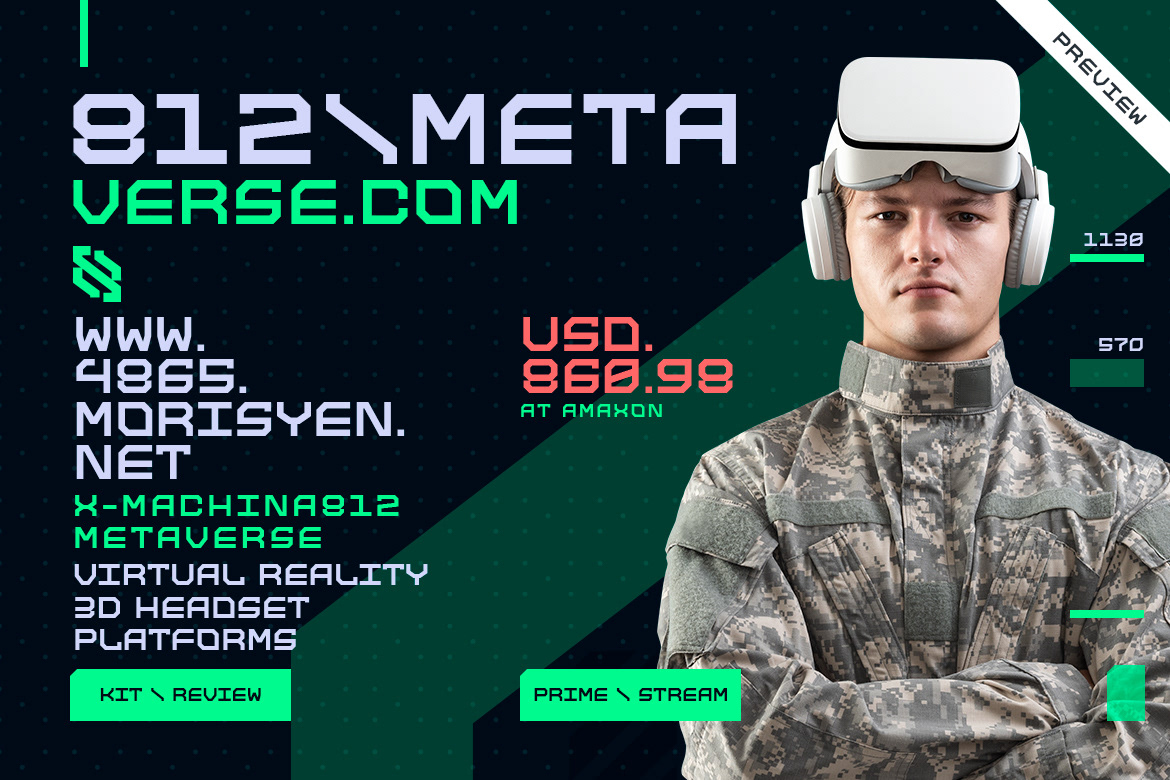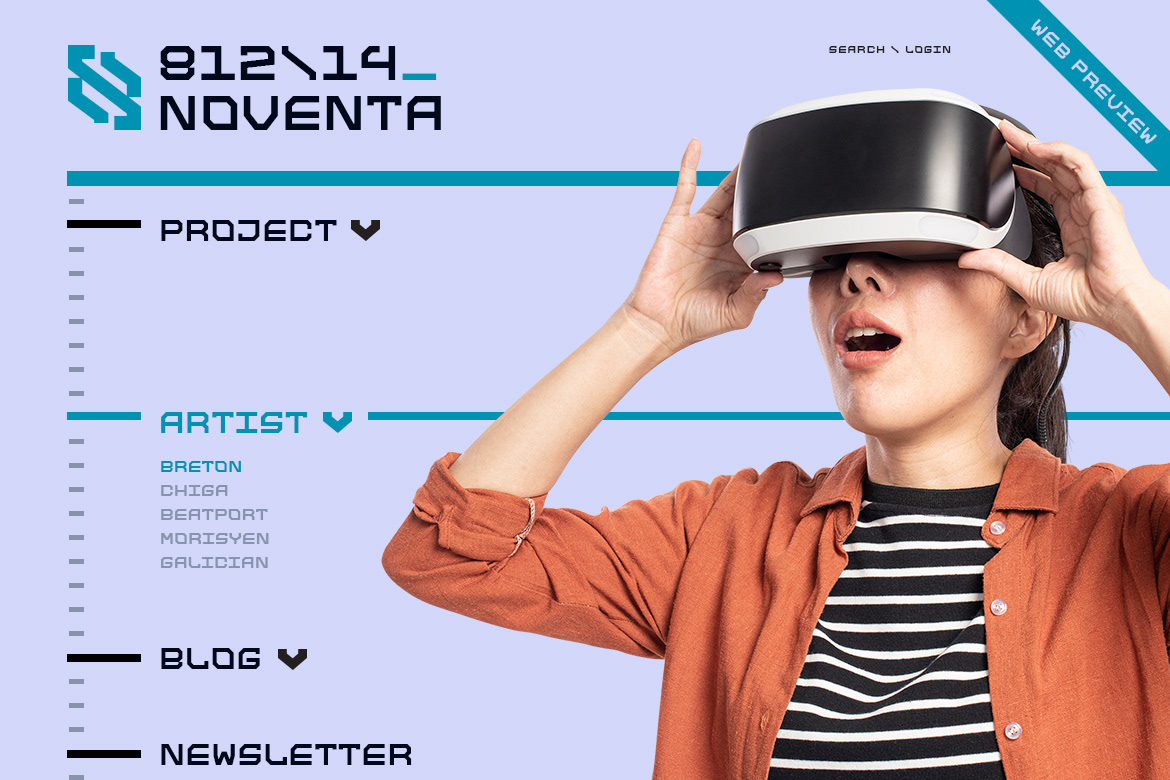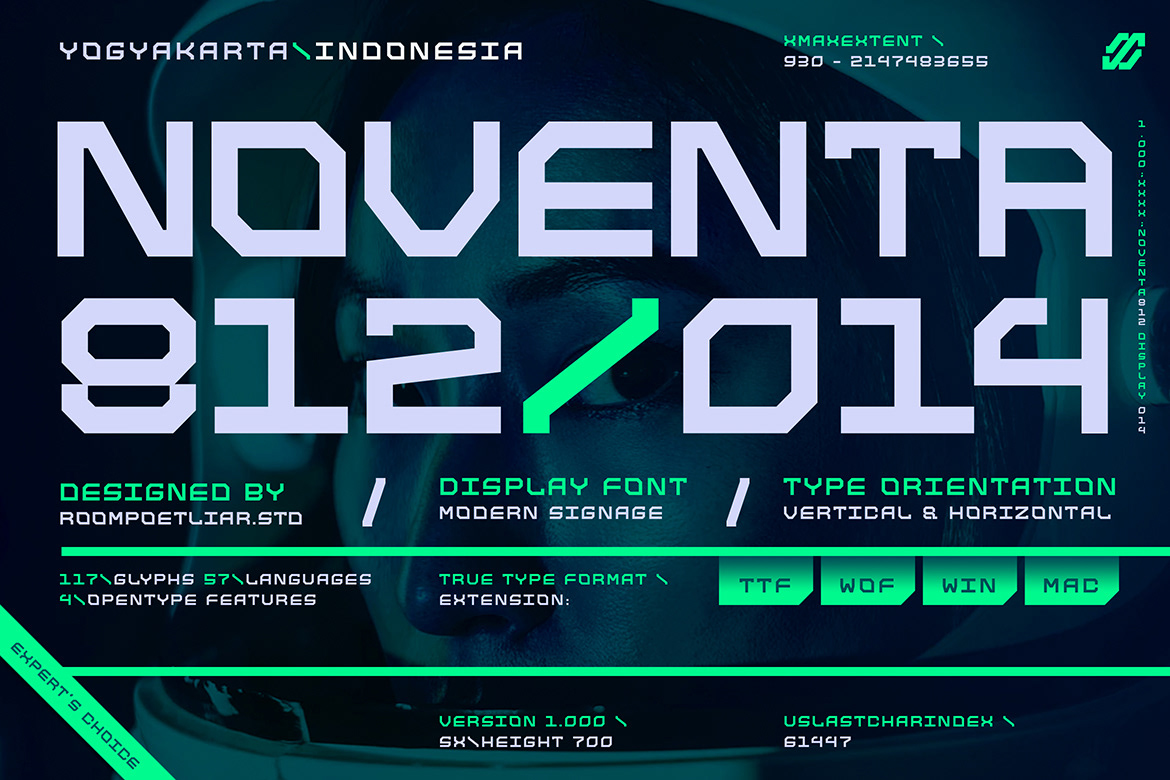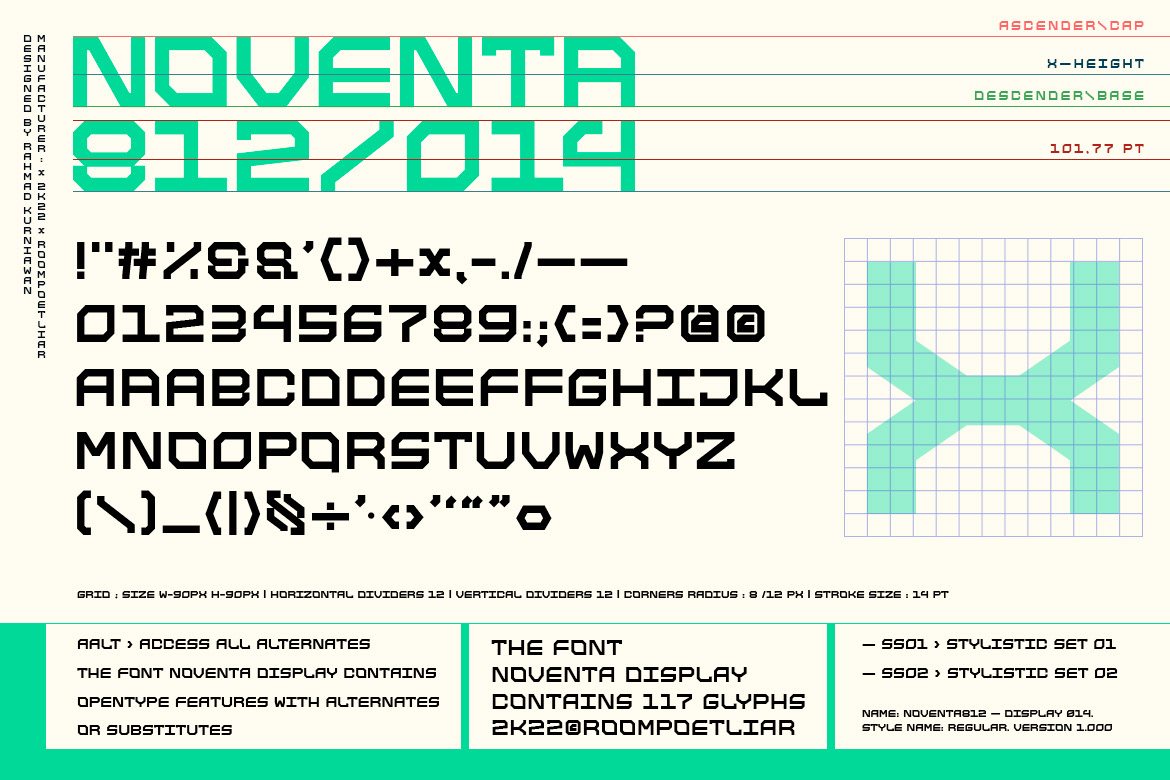
Noventa 812 Display 014 Font is a futuristic cyber font, inspired by sci-fi and technology. Designed the font with a modern feel to achieve the theme. It is also well suited for branding, magazine, marketing design, technology, sci-fi design, bag, poster designs, headlines, typography projects (streetwear, construction, resistance, solidarity, movement, revolution), E-Sport logos, sports jersey text, and much more.